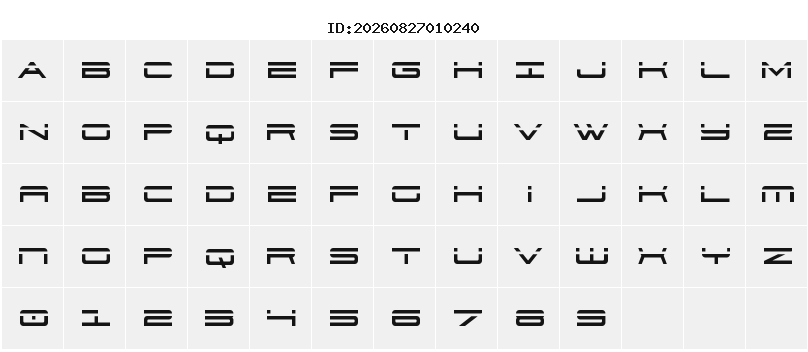
• Font Name: 911 Porscha Laser
About 911 Porscha Laser.ttf
911 Porscha Laser.ttf is a modern, elegant sans-serif font designed for ultimate readability and visual harmony. Perfect for branding, headlines, web design, and print materials.